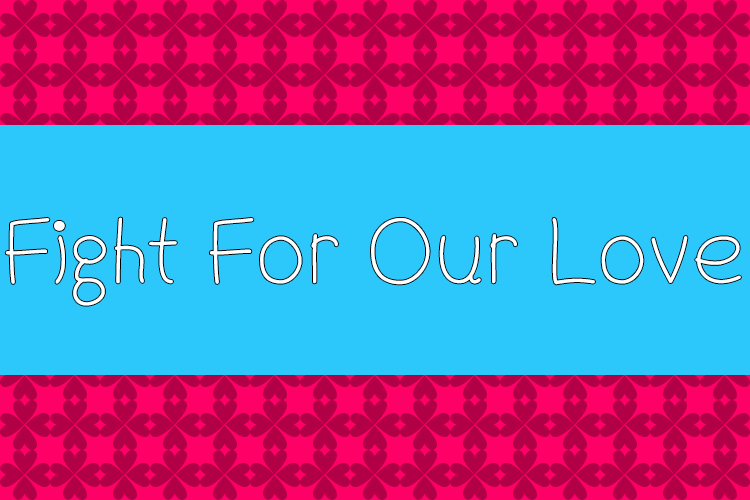
Fight For Our Love Font
About Fight For Our Love Font
2 font family styles
(Bold) Regular Style
More info from Misti's Fonts
Type 2 asterisks (**) for the butterfly
Type <3 for the heart
Type <33 for the heart cluster
Type I<3U for the special I <3 U character